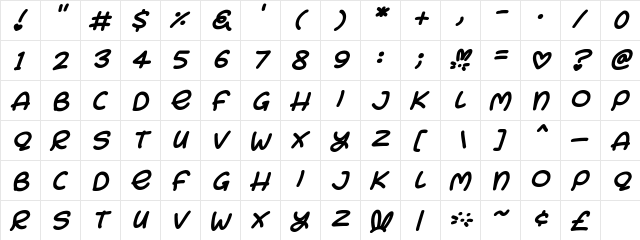
Bunny Ears Italic
Design Context for Bunny Ears Typeface
Bunny Ears is a composed and adaptable typeface that performs quietly and consistently across a wide range of design contexts. The slanted form adds forward momentum and visual energy.
Pro Tip: Try Bunny Ears for annotation and caption copy alongside an upright companion — the contrast in angle creates a dynamic but ordered typographic system.